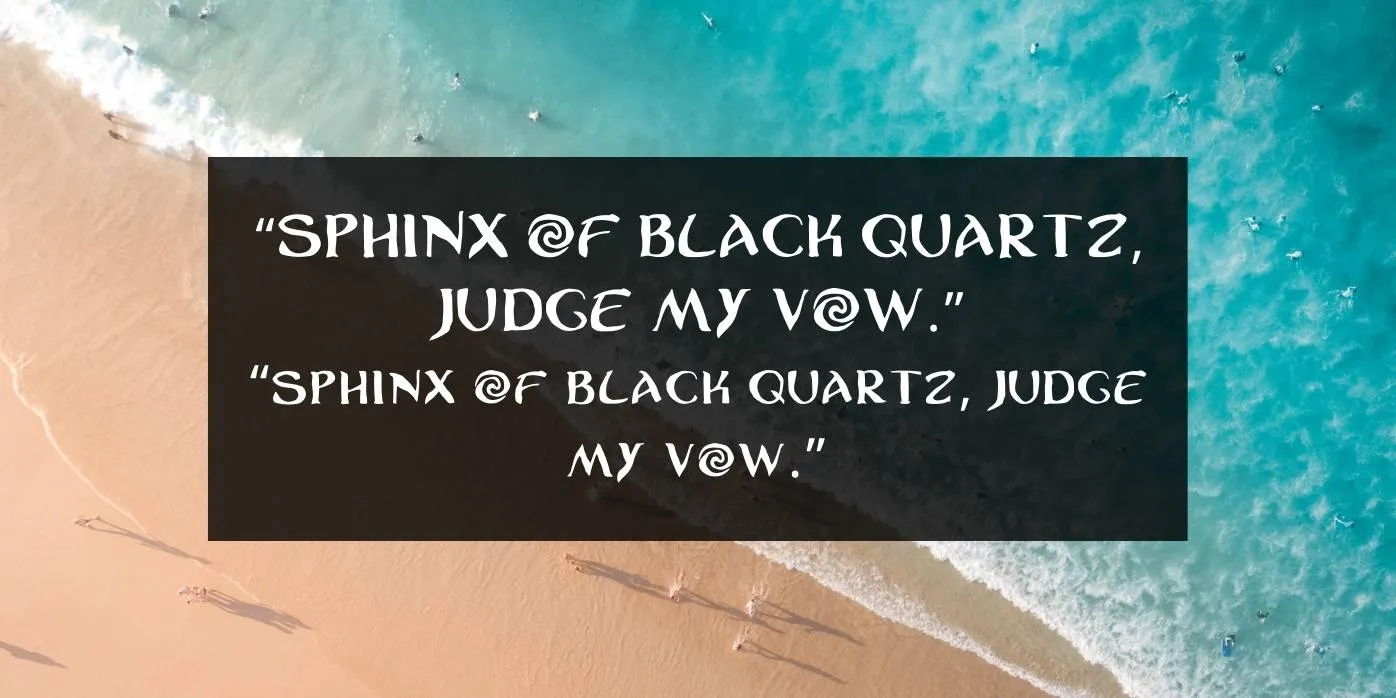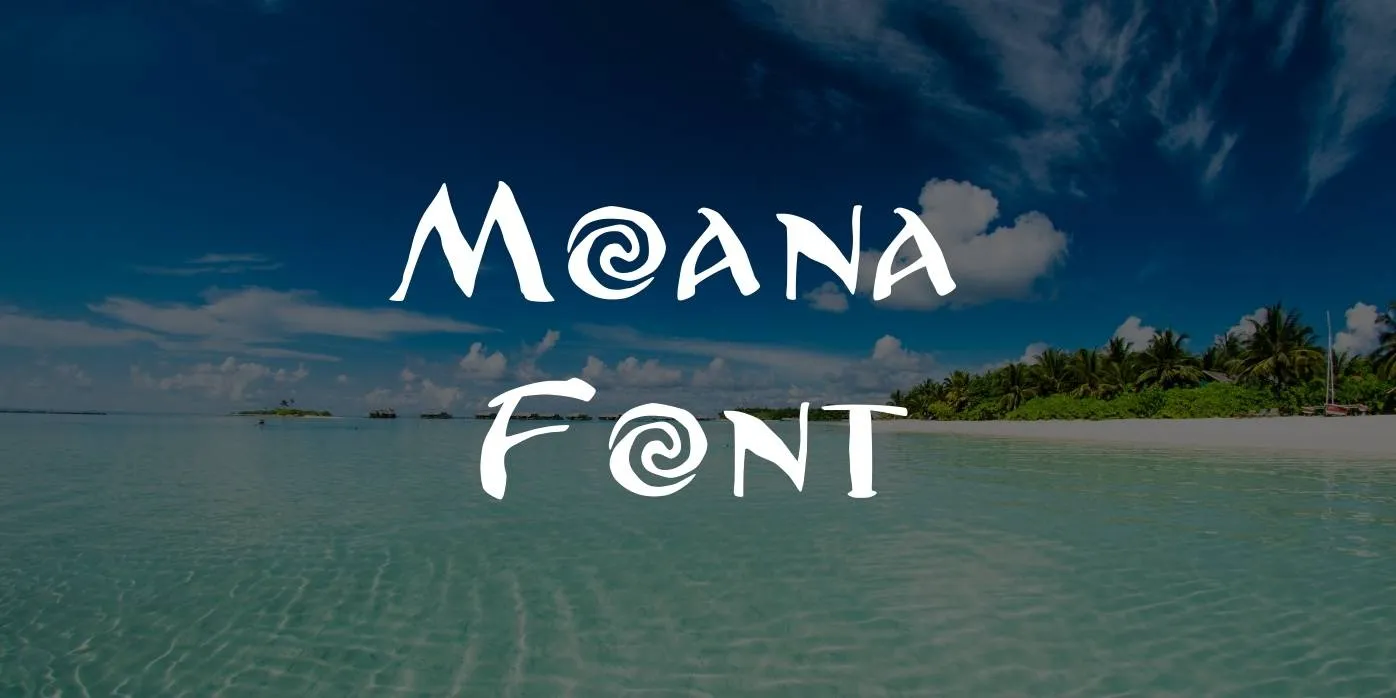
Moanas Font
In this post, we present a stylish typeface named Moanas Font. This tremendous typeface was designed and published by JoannaVu. It belongs to the sans serif font family. It is a strong, bold typeface that is perfect for making headlines and big statements.
The thick strokes and sharp edges give it a powerful look, while the curved details add a touch of elegance. It is suitable for use in Adobe and Canva. This font would be ideal for fashion or luxury brands, as well as any business that wants to convey strength and sophistication. Moanas Font can also be used for more playful purposes, such as in party invitations or children’s books.